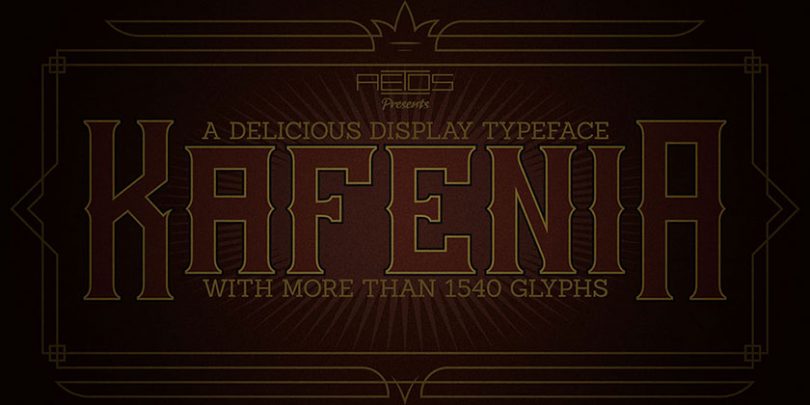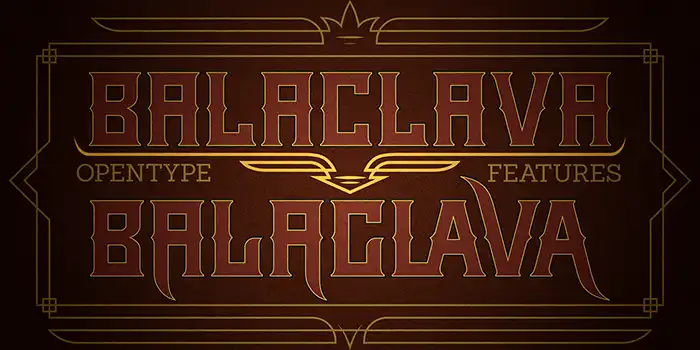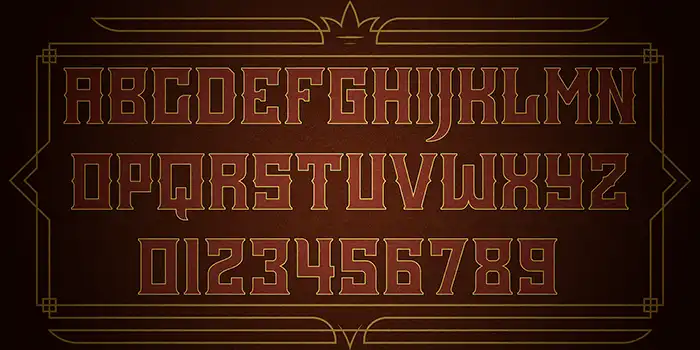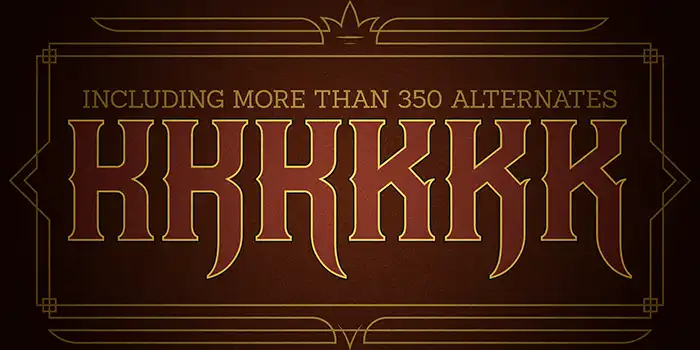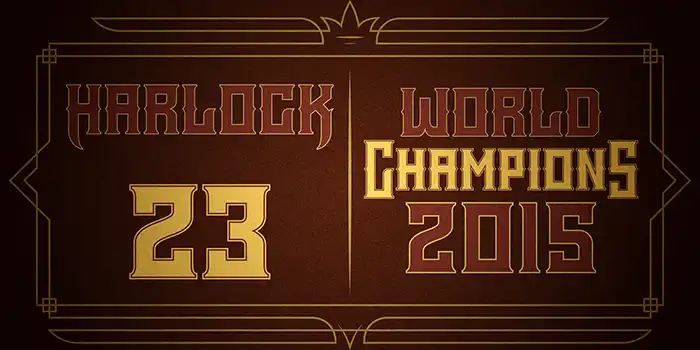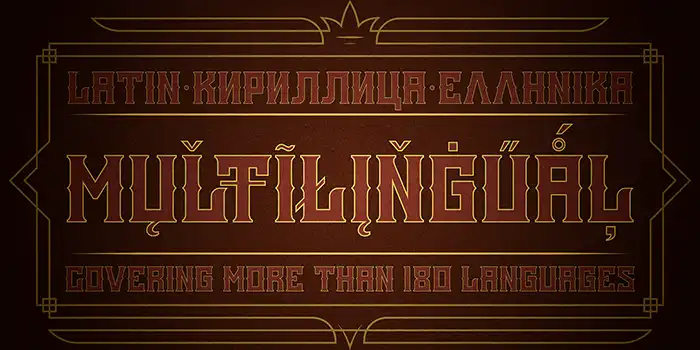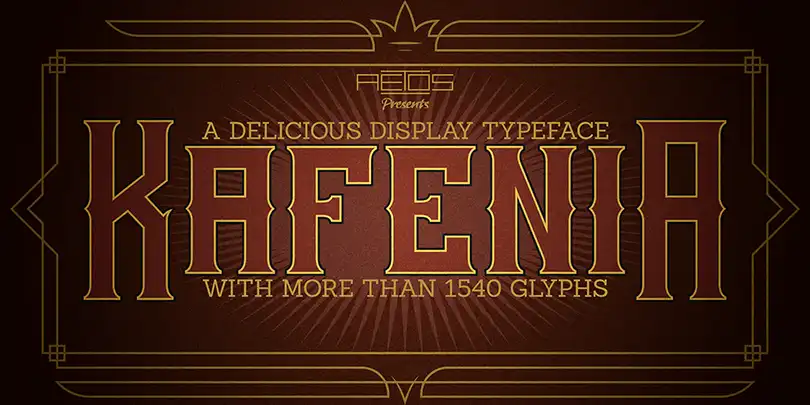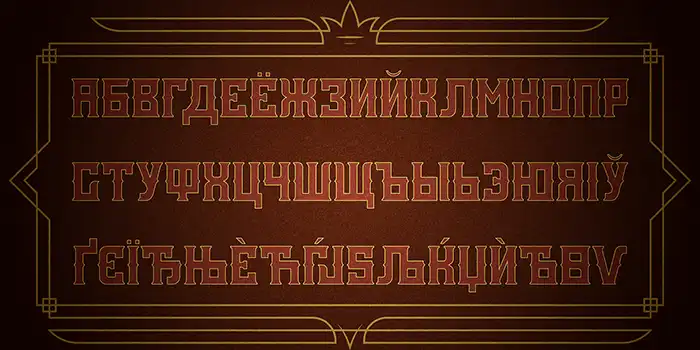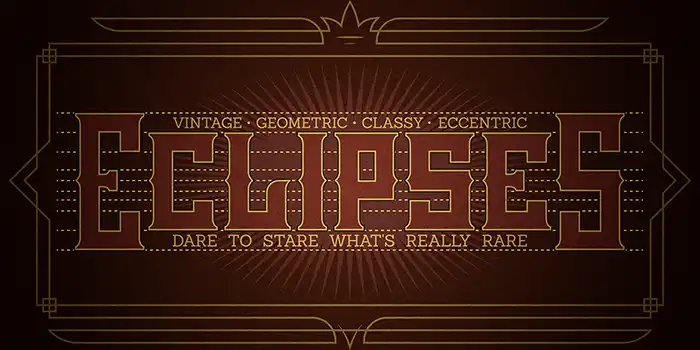
Kafenia vintage display typeface banner showing bold retro styling
If you are looking for a powerful, eye-catching display typeface for your next creative project, the Kafenia font is an exceptional choice. Kafenia is a geometric display font consisting of capitals and small capitals, designed to bring a bold, classic aesthetic to your artwork. This resource is available as a free download, allowing you to easily integrate it into your design toolkit.
A Versatile Vintage Slab Serif Font
Inspired by the seamless fusion of vintage decorative aesthetics and a squarish, compact structure, the Kafenia vintage font stands out as a classy, old-style slab serif. It is highly flexible, easily wrapped, and easily reformed to suit a wide range of layouts.
With an extensive library of open-type features, the font aims to provide design versatility and endless customization options. It is an ideal typographic choice for crafting standout logos, retro posters, bold editorial headlines, and packaging designs.
Key Features of the Kafenia Font
• Massive Character Set: Packed with more than 1,540 individual glyphs.
• Extensive Alternates: Includes more than 350 open-type alternates to help you create unique character combinations.
• Multilingual Support: Covers more than 180 languages, with full character support for Latin, Cyrillic (Кириллица), and Greek (Ελληνικά) alphabets.
• Stylistic Flexibility: Perfect for vintage, geometric, classy, and eccentric design styles.
Cyrillic uppercase character set preview for the Kafenia vintage display font.
Complete Cyrillic script support, featuring the distinct blocky and decorative structure of the Kafenia typeface.
Uppercase Latin alphabet letters and numbers zero through nine in the Kafenia vintage font.
Full uppercase Latin character set (A-Z) and numerical characters (0-9) included with the typeface.
Stylistic OpenType alternates showing different structural designs for the letter K in the Kafenia font.
Customize your headers and display text with more than 350 creative OpenType alternates.
The word ECLIPSES set in Kafenia font showing its geometric, classy, and eccentric vintage style.
A typographical layout demonstrating the vintage, geometric, and eccentric aesthetic possibilities of the font.
Typographical layout displaying the text Harlock 23 and World Champions 2015 in Kafenia vintage font.
High-impact layout showcasing how the slab serif scales for sports branding, jersey numbers, and editorial headers.
Two structural variations of the word BALACLAVA displaying standard glyphs and custom OpenType alternate letterforms.
Standard glyph styling compared to customized OpenType alternate structures for advanced logo design.
Multilingual typography sample of Kafenia font supporting Latin, Cyrillic, and Greek alphabets for over 180 languages.
Broad multilingual capabilities supporting Latin, Cyrillic, and Greek alphabets covering more than 180 languages.
Frequently Asked Questions (FAQ)
What design styles best suit the Kafenia font?
Because of its compact, geometric, and slab-serif structure, Kafenia is highly suited for vintage-themed designs, posters, logo marks, headlines, retro branding, and packaging.
Does the Kafenia typeface support languages other than English?
Yes. Kafenia is a highly multilingual font covering more than 120 languages. It includes comprehensive character sets for Latin, Cyrillic (Кириллица), and Greek (Ελληνικά) alphabets.
How many glyphs and alternates are included in the Kafenia font?
The font is incredibly detailed, containing over 1,540 glyphs and more than 350 OpenType alternates, allowing for extensive typographical variation.